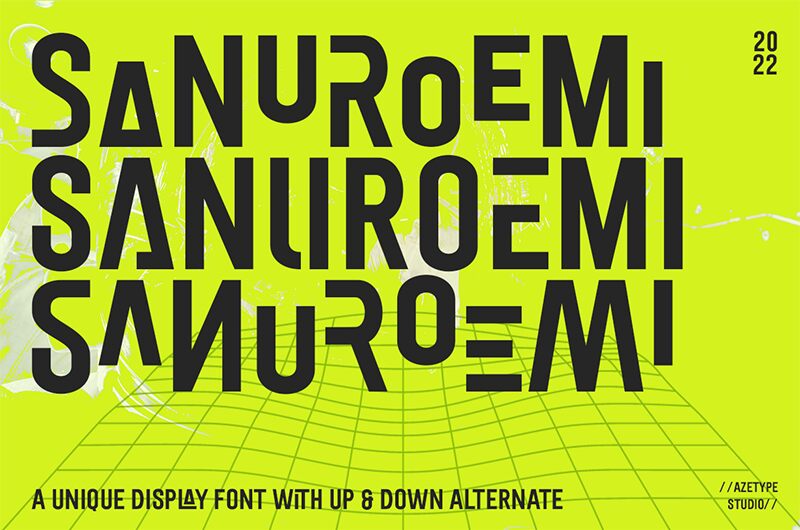
Sanuroemi font is a minimalistic sans serif typeface crafted by Azetype Studio. Its condensed width and geometric forms make it professional and versatile, ideal for various applications. The clean lines of Sanuroemi allow it to adapt beautifully to both modern designs as well as ones that combine classic with the contemporary.
The free sans serif font is fit for logos, badges, book covers, magazine covers, web design, and applications. Decorate your greeting cards or invitations with professional letters or mix things up by combining bold headers in interesting posters that catch the attention of passersby.